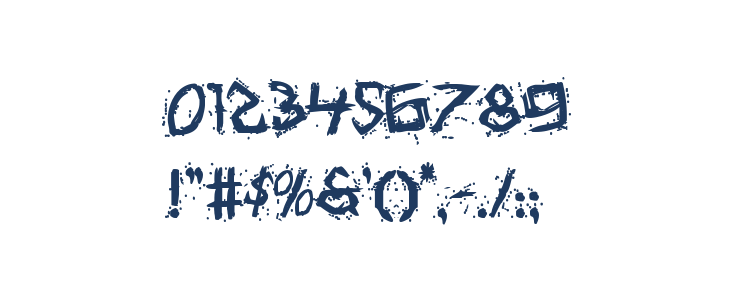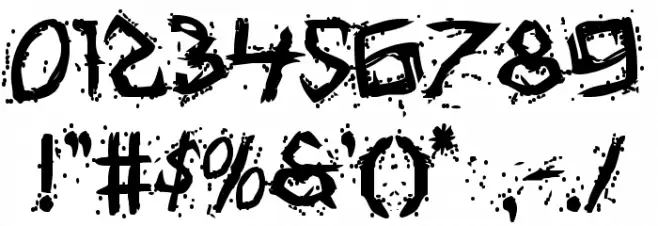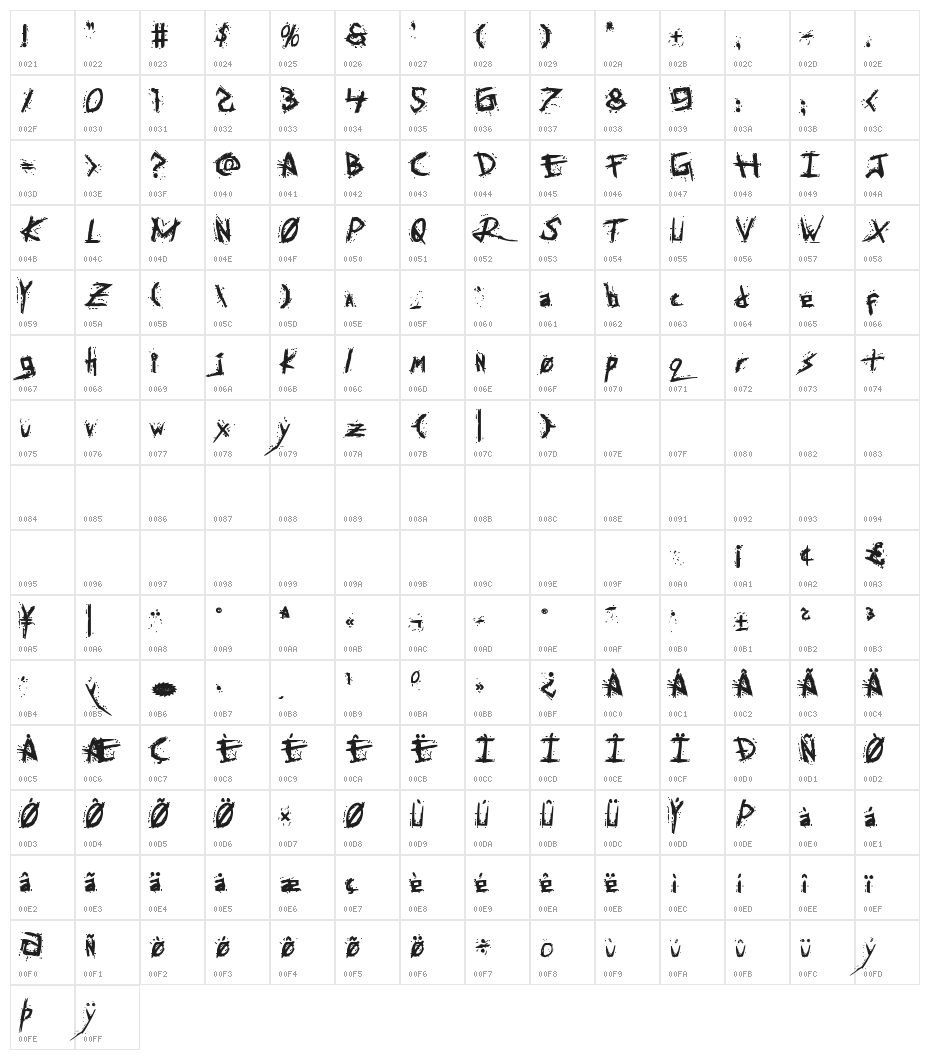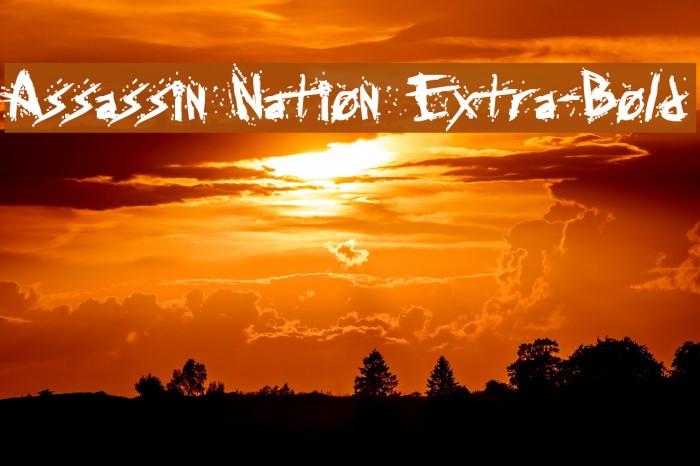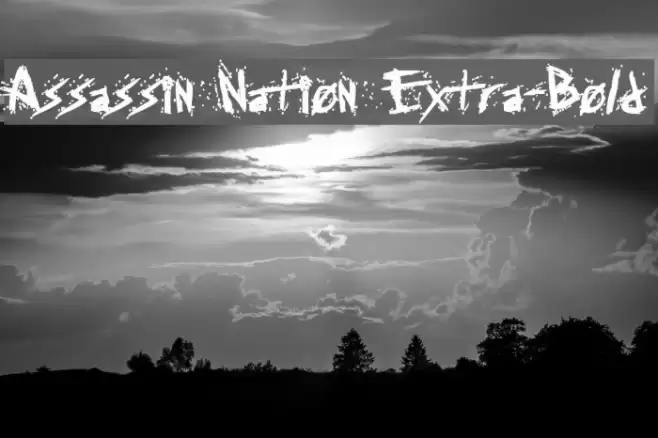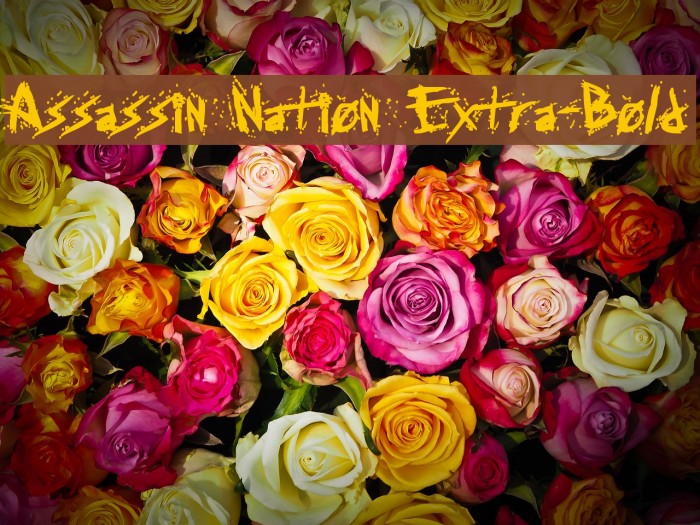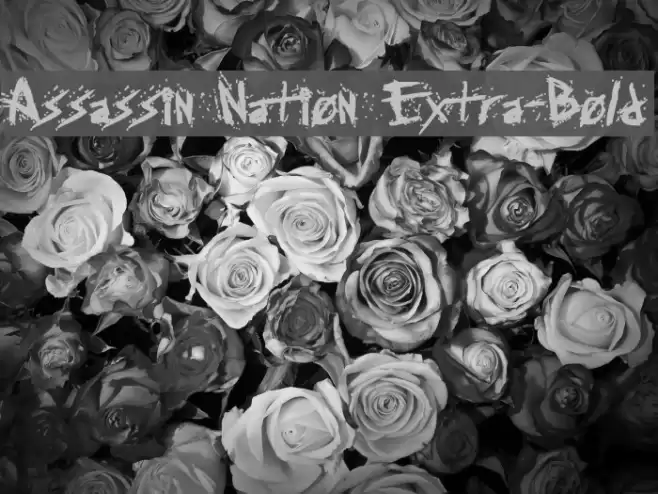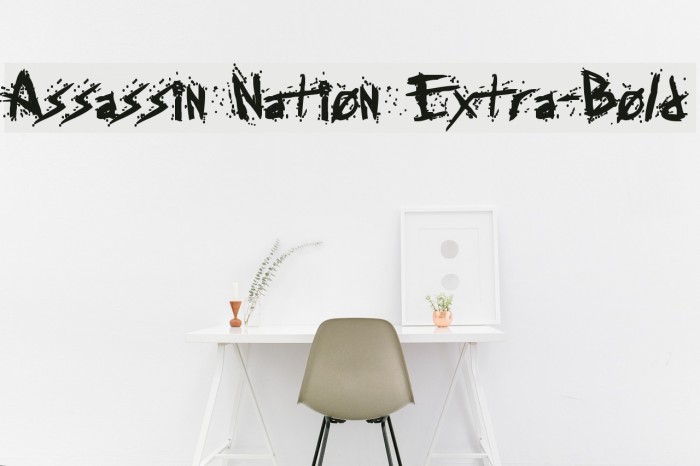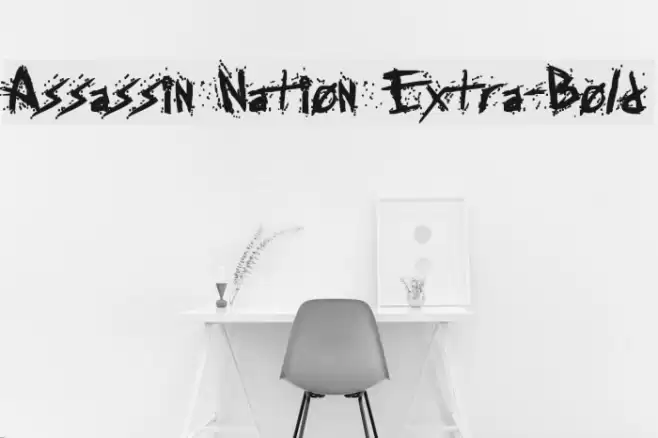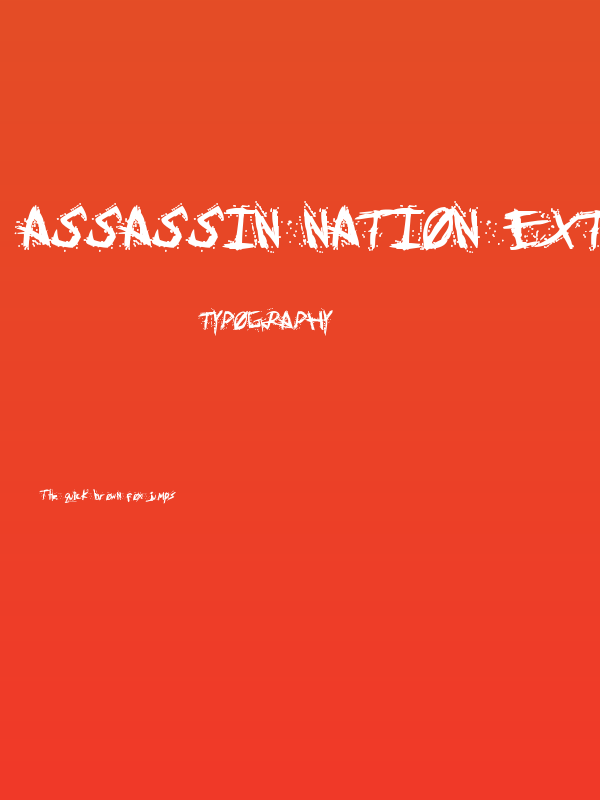
Assassin Nation Extra-Bold Font
Assassin Nation Extra-Bold Description
This font exudes a raw, edgy aesthetic with its jagged, irregular strokes and splattered ink effects. The characters are bold and chaotic, giving off a rebellious and energetic vibe. The uppercase and lowercase letters maintain a consistent style, with sharp angles and a distressed look that adds to its gritty charm. Numbers and special characters follow the same rugged design, making the font versatile for various creative applications. Its unique appearance makes it stand out, perfect for projects that require a bold statement.
Overall StyleModern, Grunge
Proposed ProjectsIdeal for music album covers, graffiti art, posters, and edgy branding projects.